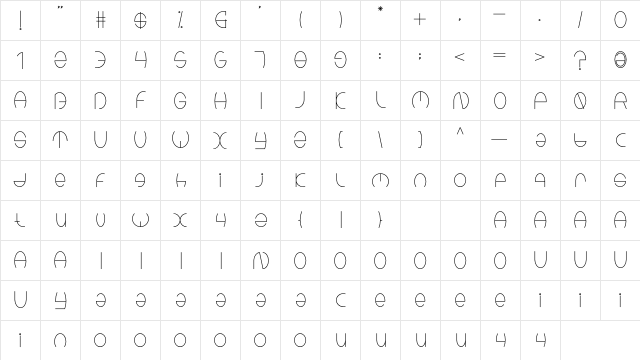
Kinders Regular
Design Context for Kinders Typeface
Kinders is a composed and adaptable typeface that performs quietly and consistently across a wide range of design contexts.